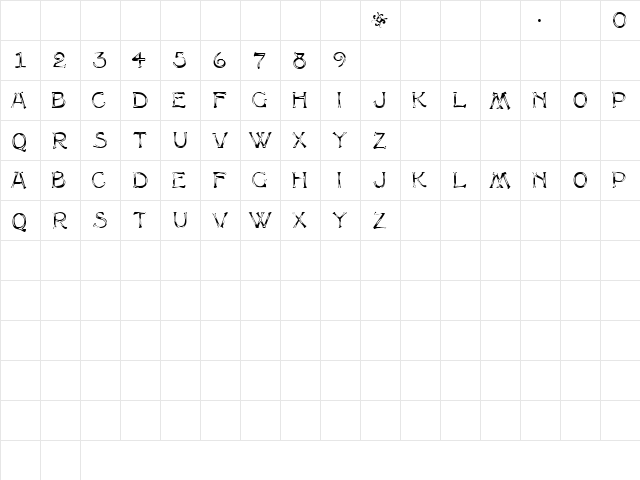
CamoCapsSSK Regular
Design Context for CamoCapsSSK Typeface
CamoCapsSSK is a composed and adaptable typeface that performs quietly and consistently across a wide range of design contexts.
Pro Tip: Use CamoCapsSSK in both headline and body roles to test its range before committing to a single application.